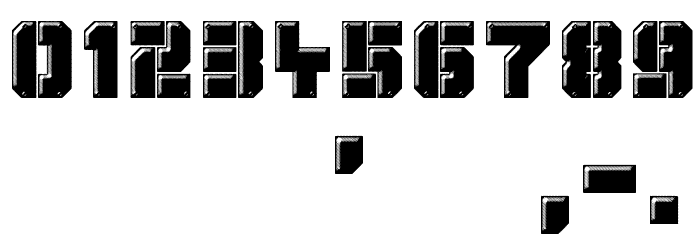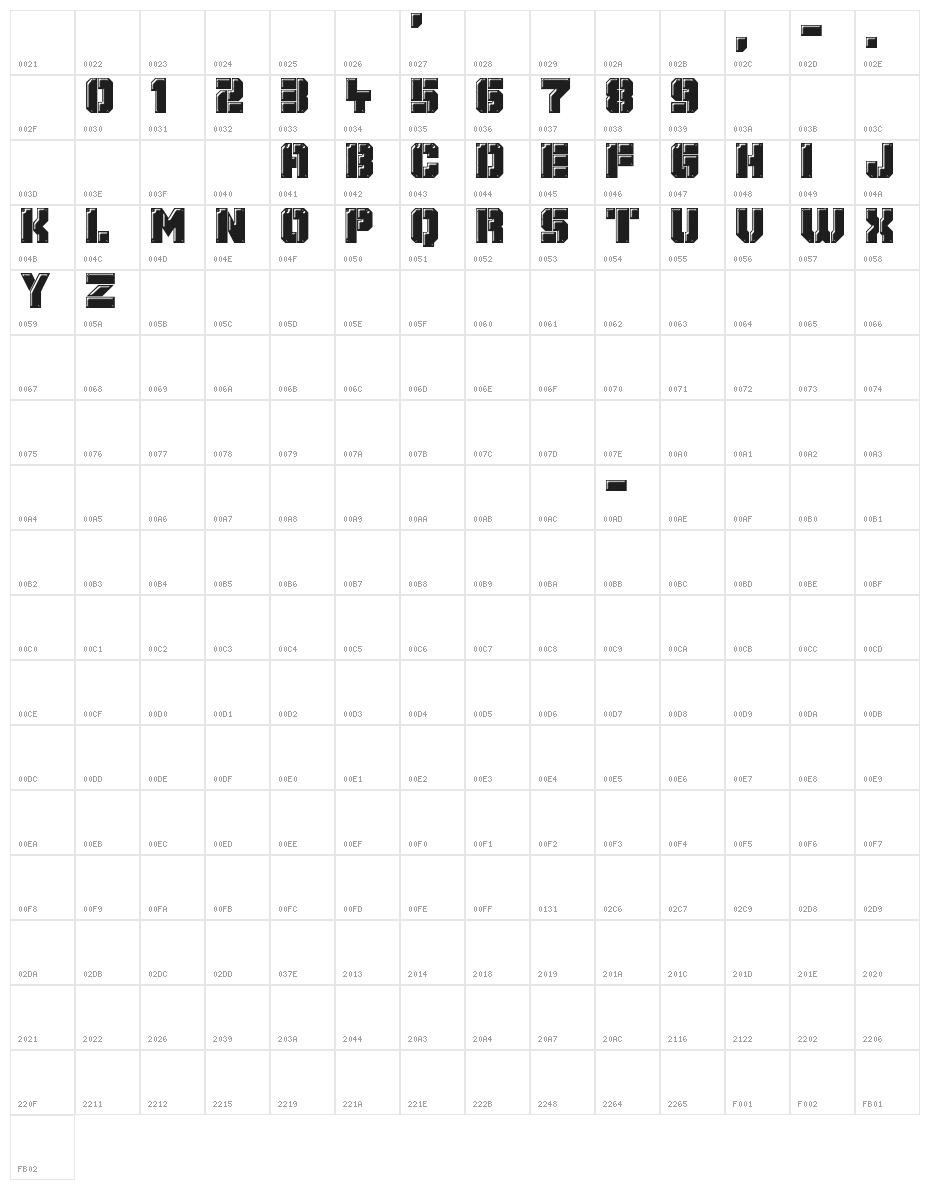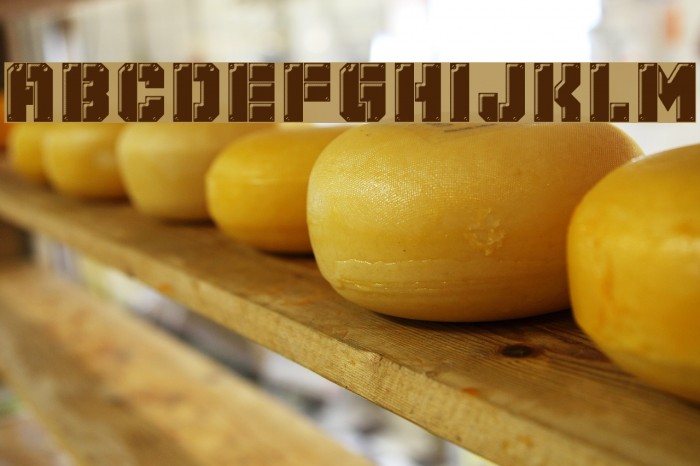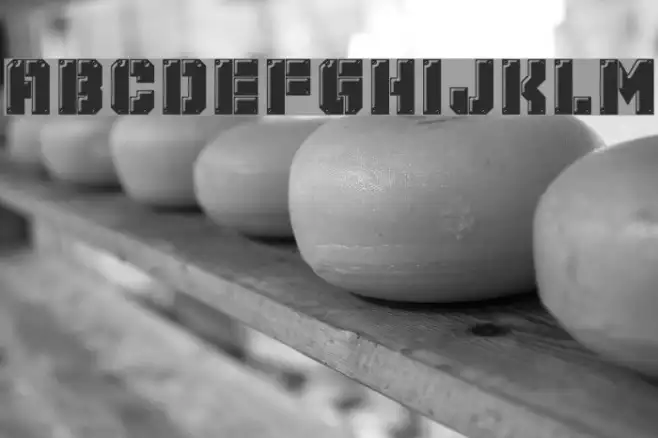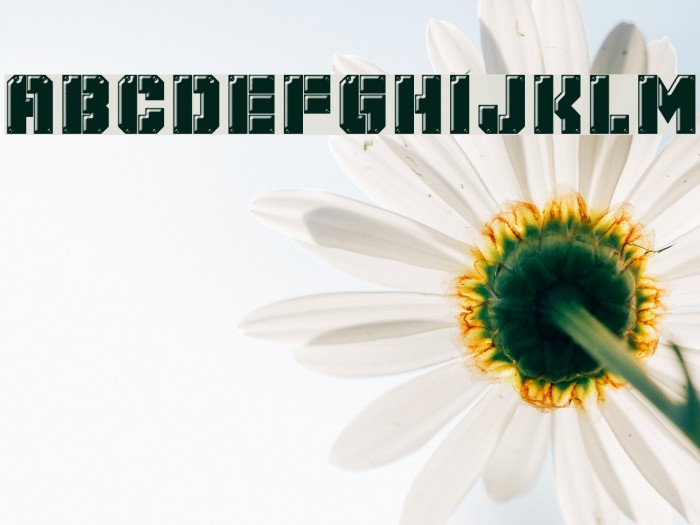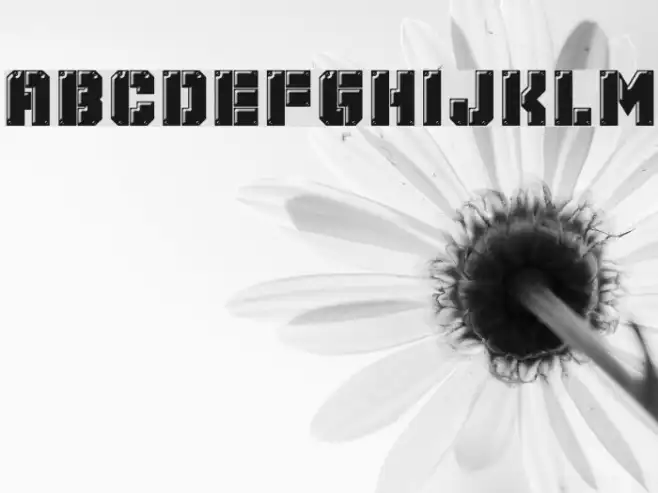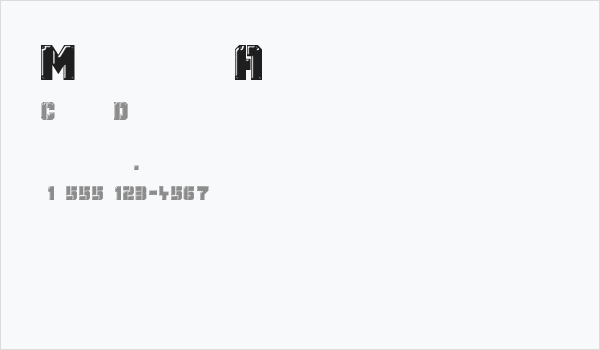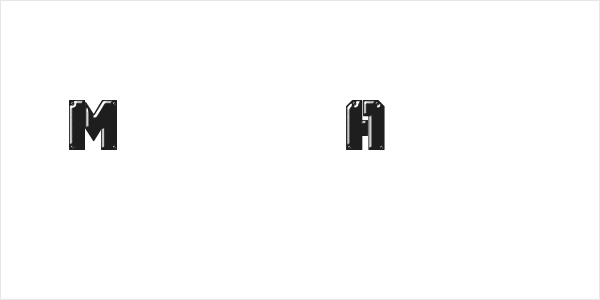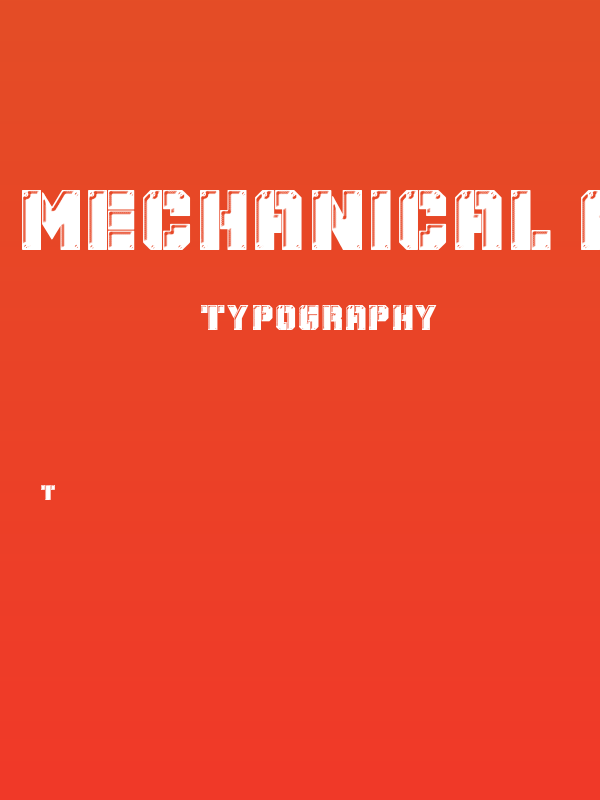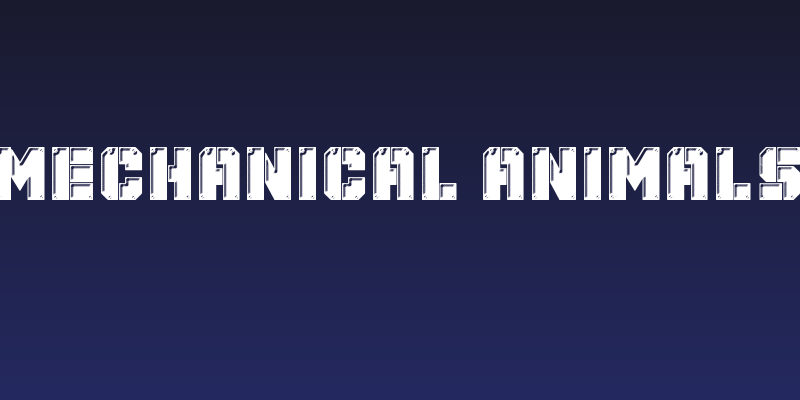
Mechanical Animals Font
Mechanical Animals Description
This font exhibits a bold, industrial aesthetic with a mechanical and futuristic feel. The characters are blocky and robust, featuring sharp angles and a distinct three-dimensional effect that suggests depth and structure. The design incorporates a stencil-like appearance, with cut-out sections that enhance its technical and engineered look. The uppercase letters are particularly striking, with consistent height and width, while the numerals and punctuation maintain the same bold style. This font is ideal for projects that require a strong, impactful presence, conveying a sense of strength and modernity.
| Overall Style | Modern, Industrial |
| Proposed Projects | Ideal for technology branding, video game titles, industrial product packaging, and sci-fi themed designs. |